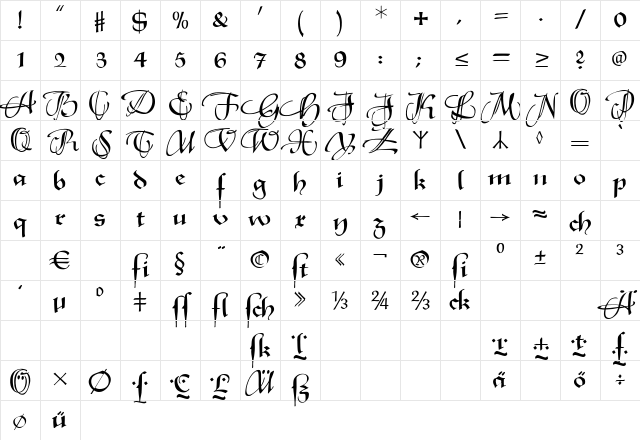
XmasTerpieceSwashes Regular
Design Context for XmasTerpieceSwashes
XmasTerpieceSwashes flows with the natural rhythm of handwritten lettering, making it ideal for designs that call for warmth and personal expression.
Font Pairing: Combine XmasTerpieceSwashes with a simple geometric sans for maximum contrast - the tension between flowing curves and clean structure is a classic typographic pairing.
Pro Tip: Use XmasTerpieceSwashes for short runs of text - names, titles, or taglines. Extended body copy in script faces tires the eye quickly.